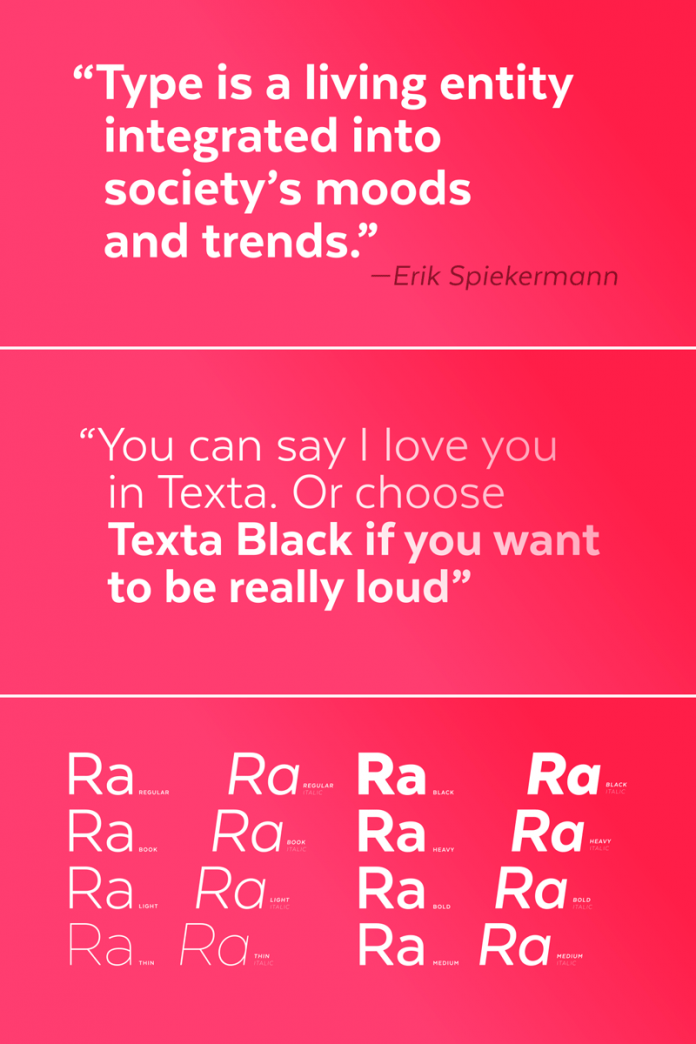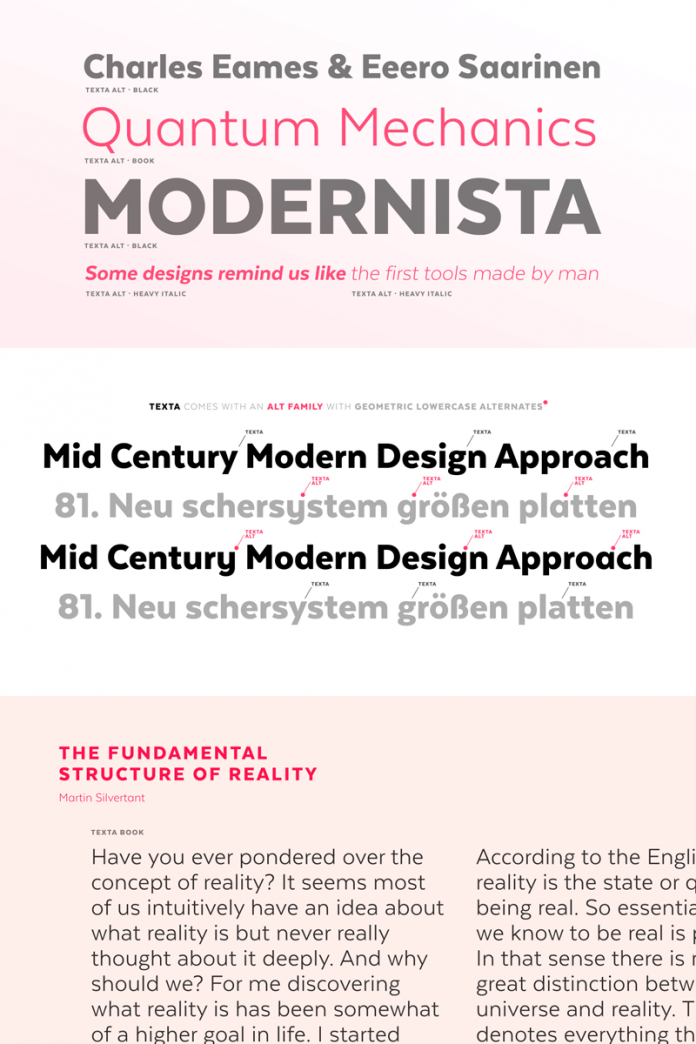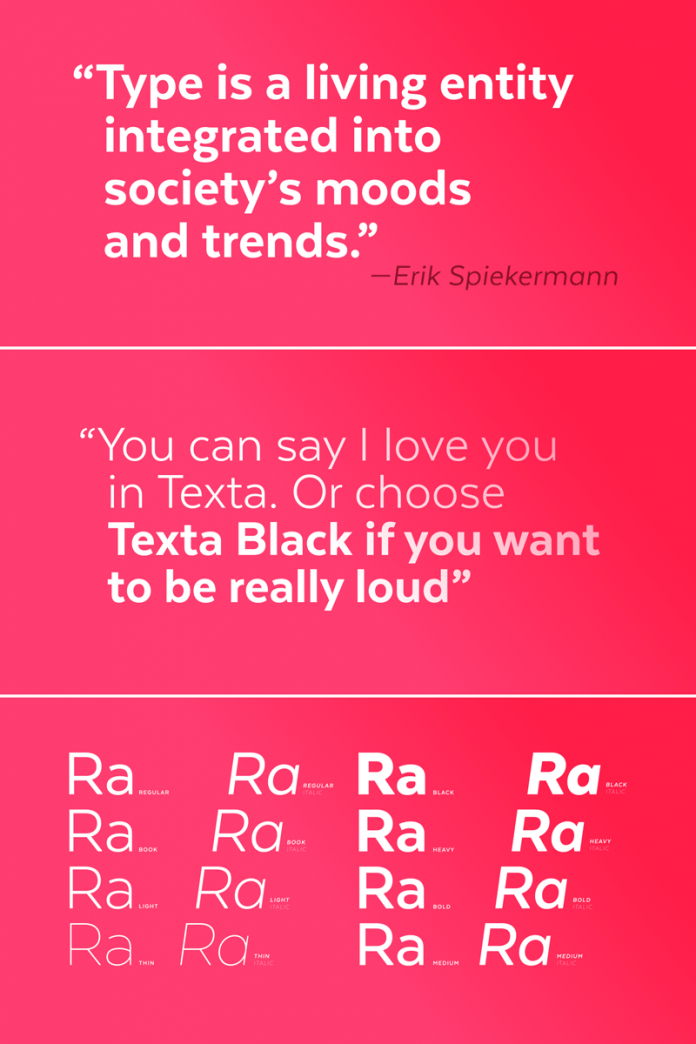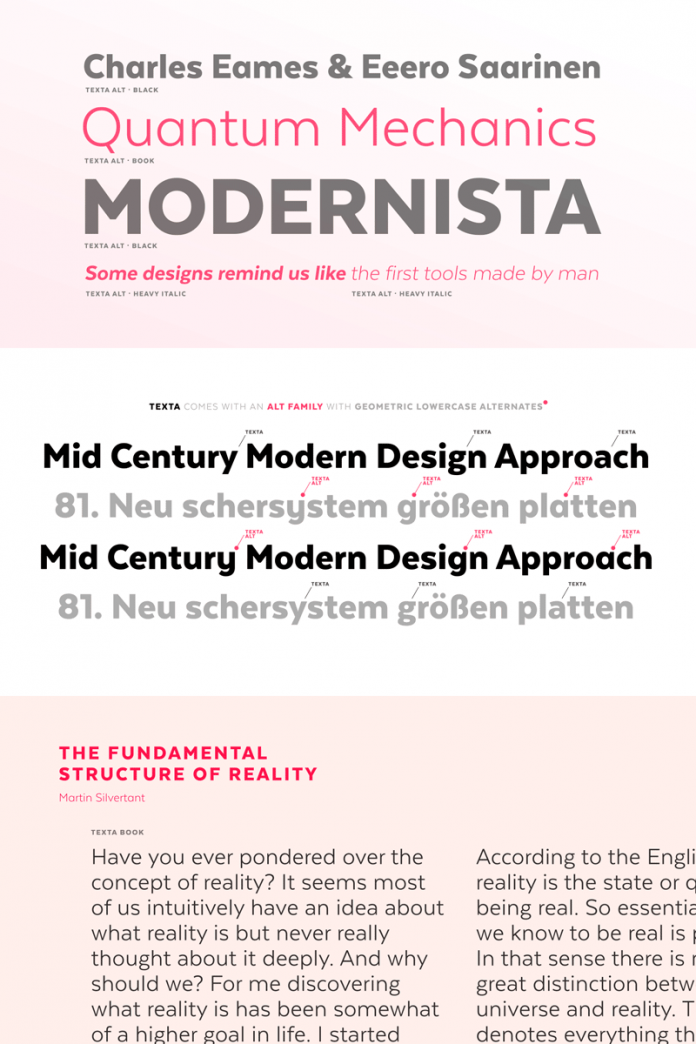
Texta, a contemporary and useful text font family from Latinotype.
Type designer Daniel Hernández teamed up with Miguel Hernández to create Texta, a modern and useful sans serif font family. This typeface combines influences from humanist fonts from Edward Johnston to Adrian Frutiger and the Gothic Alphabet made by talented sign painters. This typeface is intended for the use in any kind of texts. In addition, the two typeface designers created an Alt version that replaces lower cases like a, g, and y with geometric constructions to get more versatility in neutral compositions. The family is available as both Webfont and Desktop font.